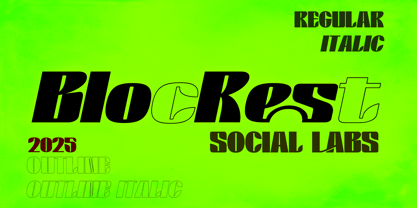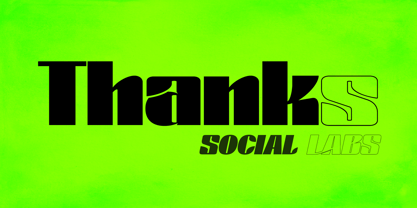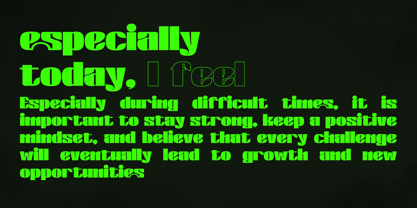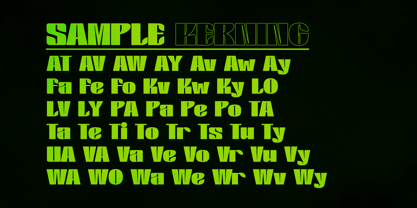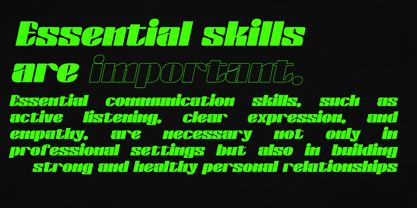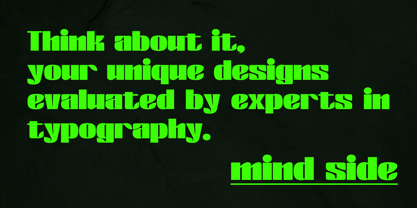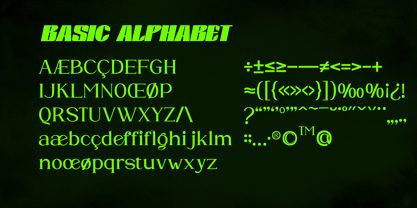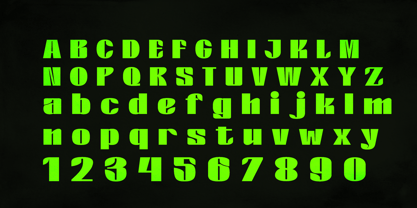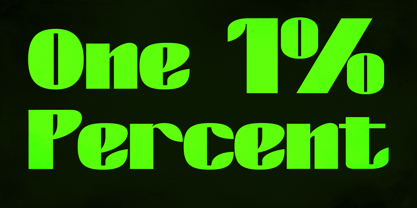
BlocRest
by Social Labs
The BlocRest Font Family was designed by Muhammad Naufal and published by Social Labs. BlocRest contains 4 styles and family package options.
BlocRest is a bold stencil typeface that stands upright like concrete blocks, yet breathes through sharp pauses that create a unique visual rhythm. Each letter is a drum beat, each stencil cut is a musical pause that gives the eye space to feel the harmony between strength and silence. Built from solid geometric shapes, BlocRest brings urban energy, industrial nuances, and a bold futuristic spirit. It is perfect for concert posters, logos that demand attention, album covers with attitude, and branding that requires a strong voice and unshakable visuals. BlocRest is not just a typeface; it is a rhythmic composition of blocks and pauses, sound and silence, strength and balance.